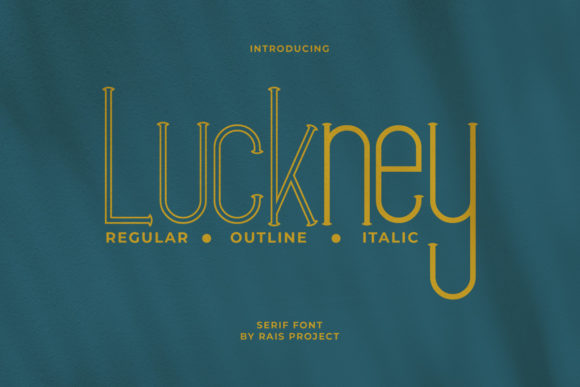
Calling all design enthusiasts, typographers, and creatives alike! Embark on an extraordinary typographic journey with Luckney Font, a captivating serif font that will redefine your creative endeavors.
As you immerse yourself in the world of Luckney, be captivated by its slender, elongated strokes that exude a mesmerizing elegance. This remarkable font possesses an unparalleled charm, making it the perfect choice for injecting a touch of sophistication into your designs.
Unleash your imagination as Luckney's versatility becomes your creative canvas. Whether you're crafting stunning web designs, designing eye-catching business cards, or seeking to add a touch of uniqueness to any project, Luckney's boundless possibilities will leave you spellbound.
Experience the transformative power of Luckney. Its thin, towering letters possess an inherent grace that will elevate your creations to new heights. Prepare to turn heads and inspire awe as your designs radiate with unparalleled style and sophistication.
Welcome to the world of Luckney Font, where creativity flourishes and your typographic visions take flight. Immerse yourself in its enchanting embrace and witness the magic unfold as Luckney becomes your go-to font for all things design.